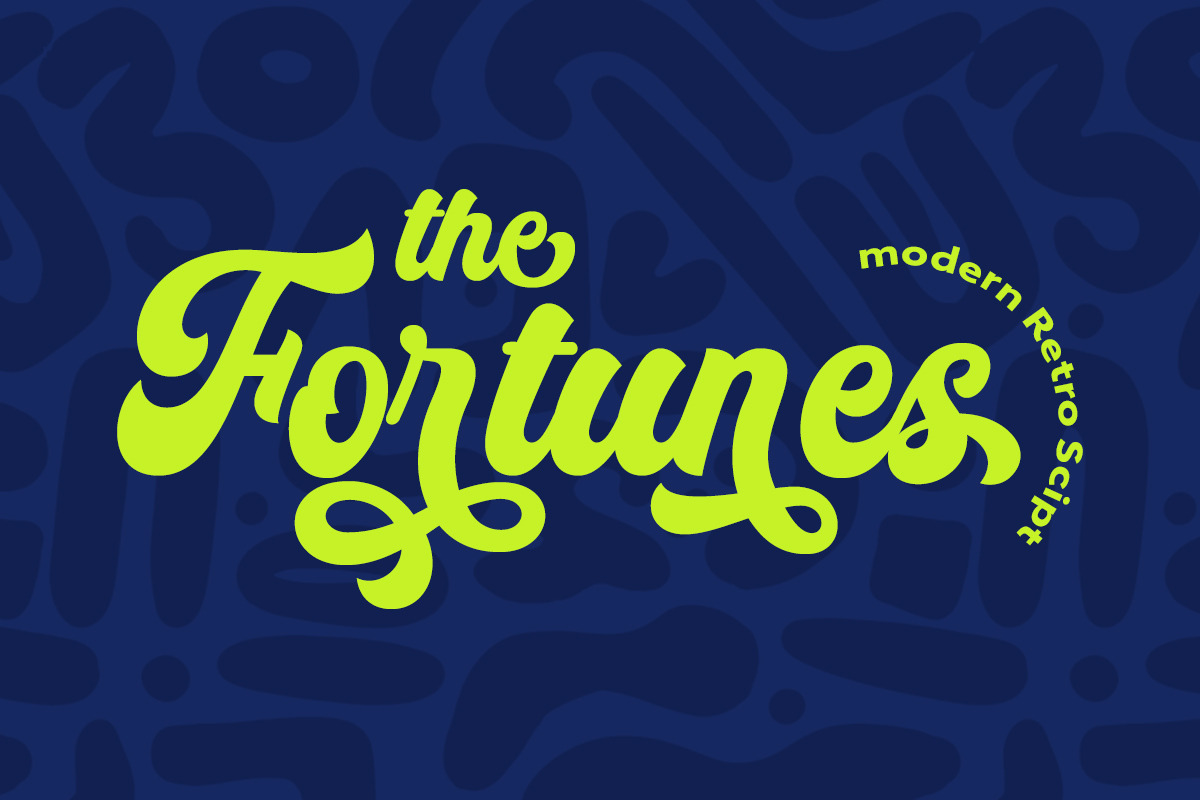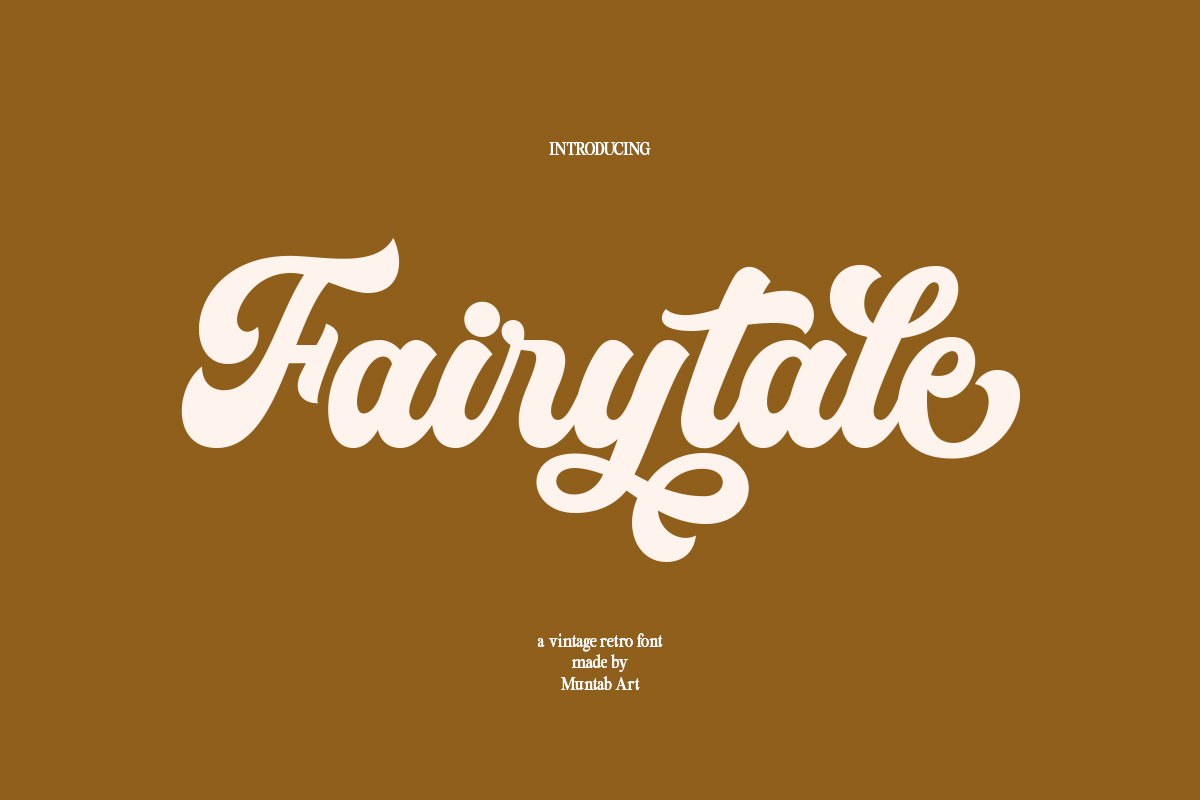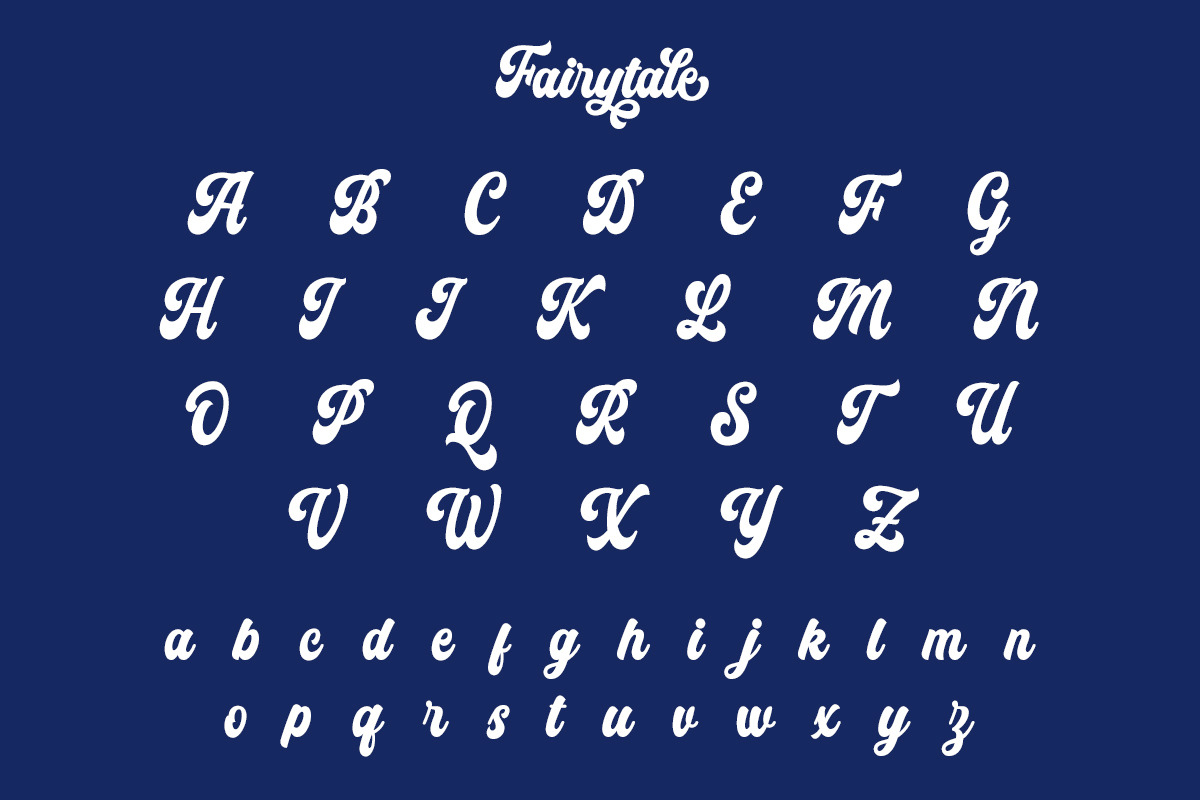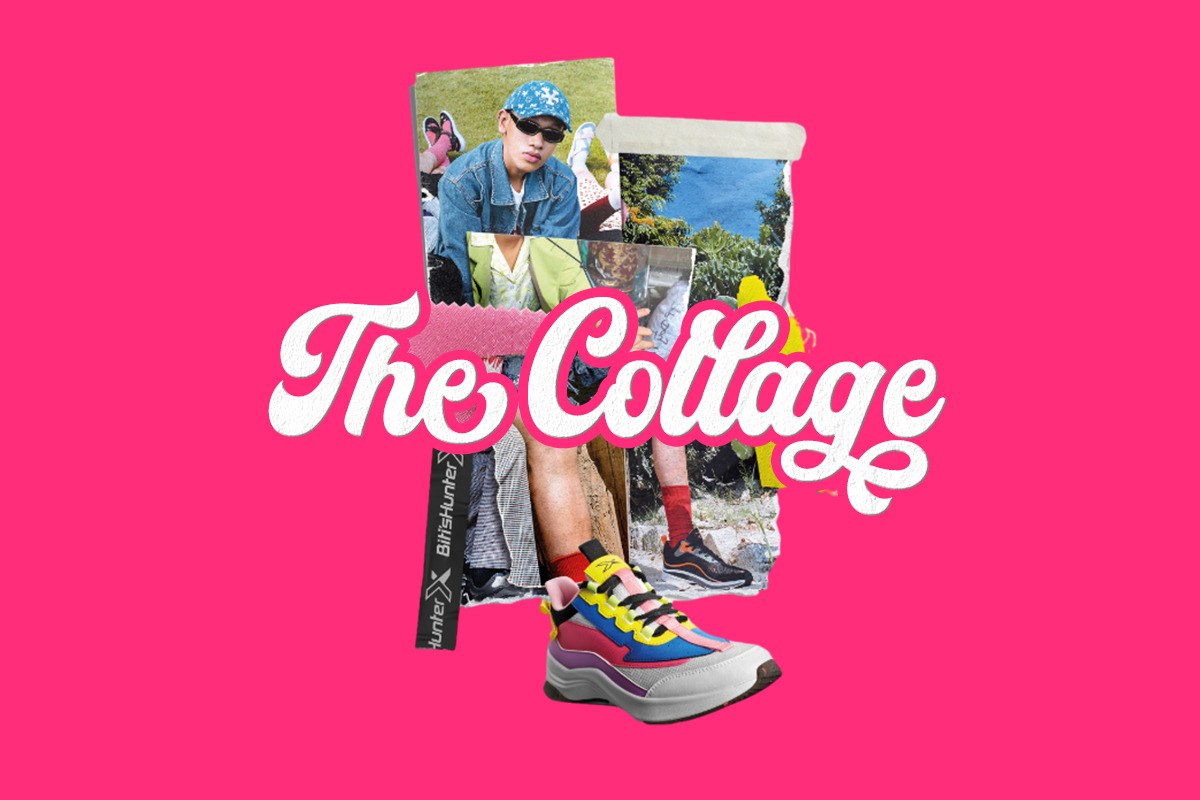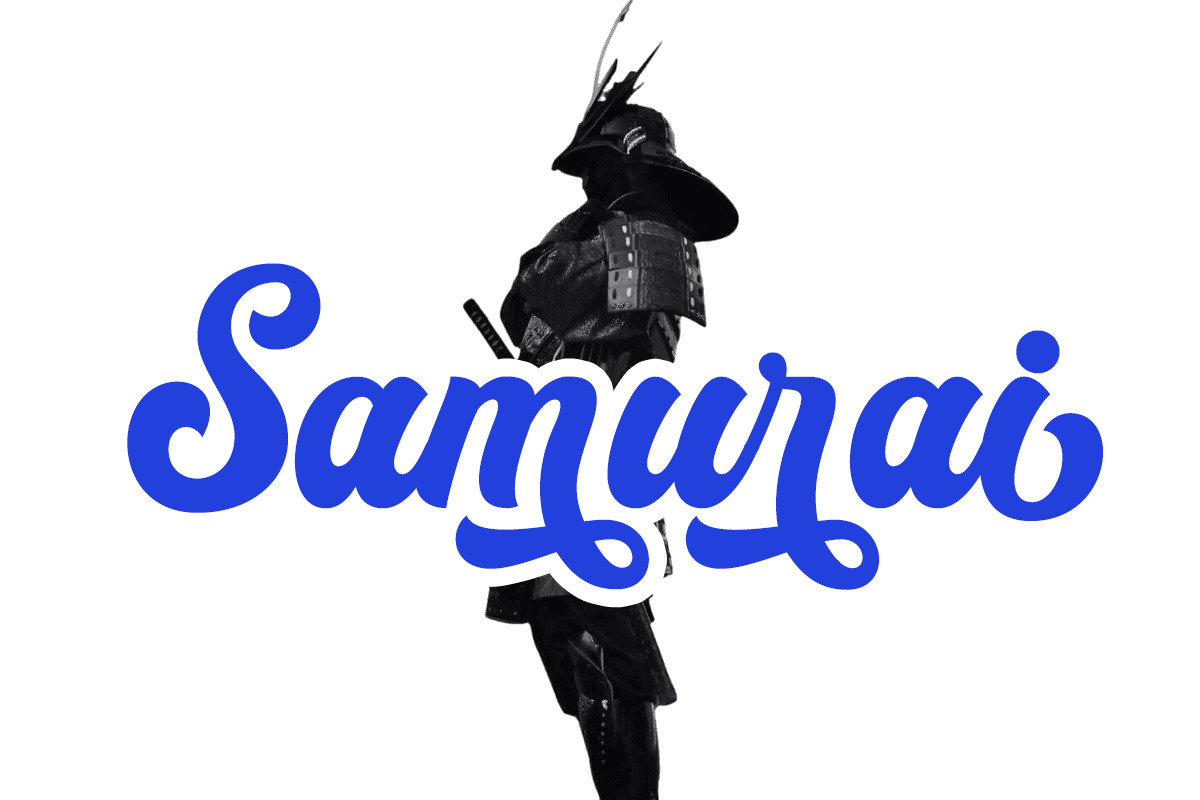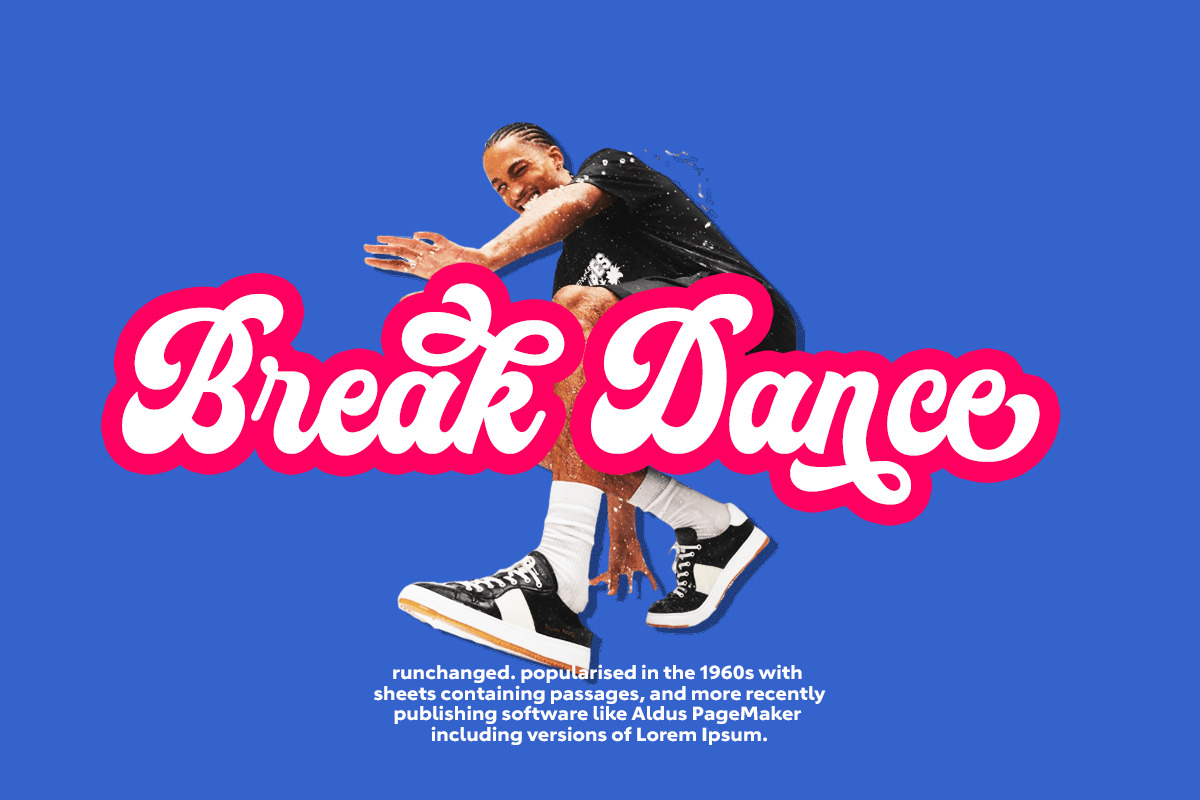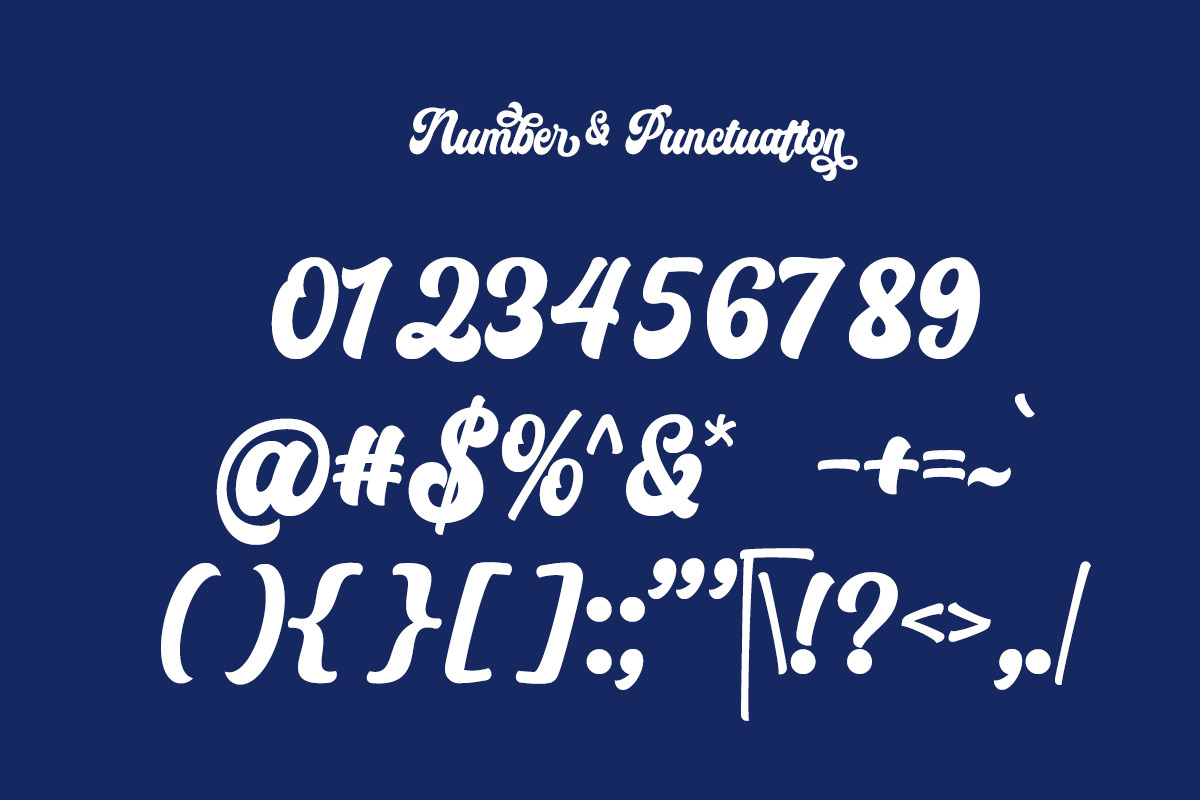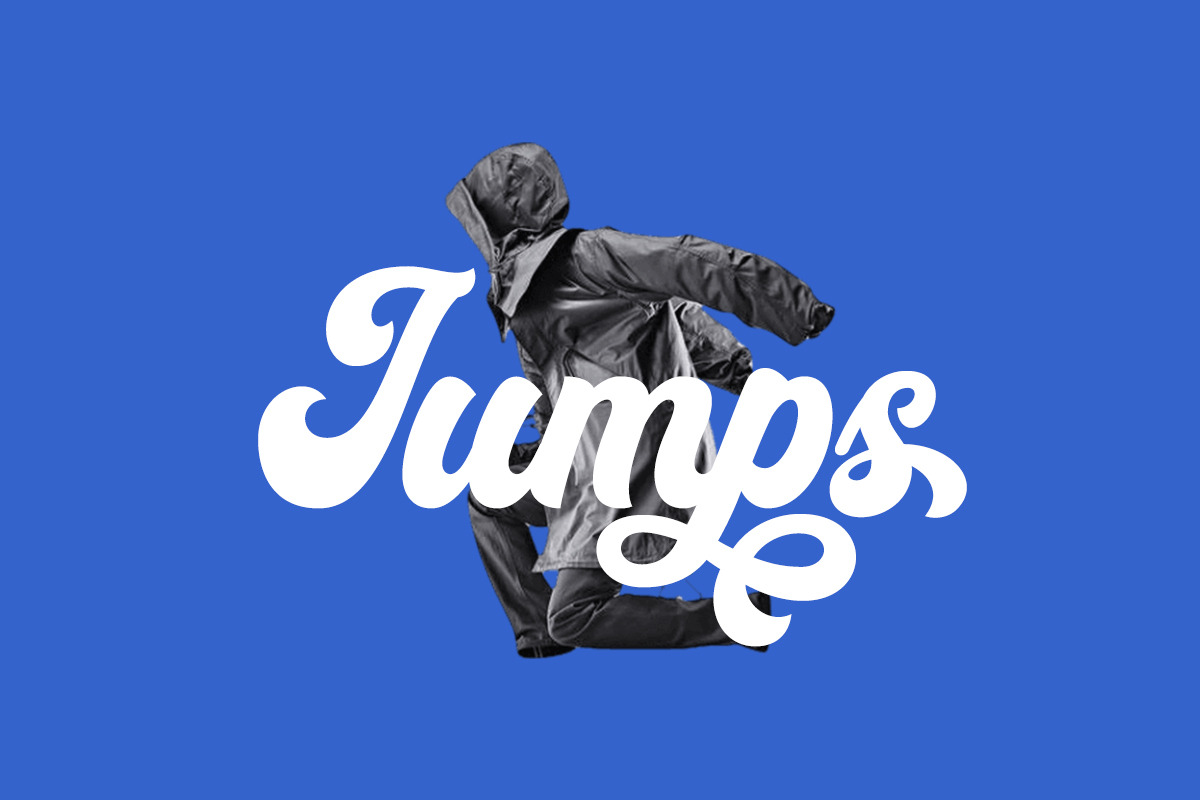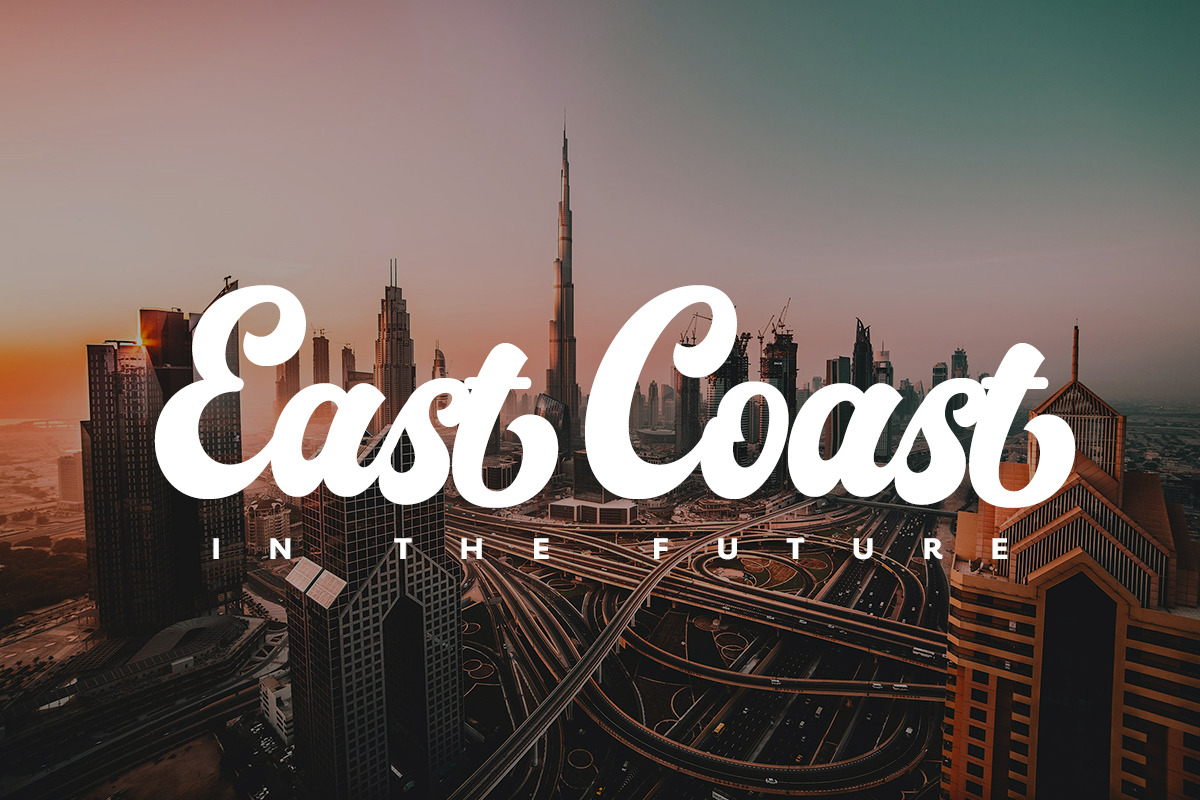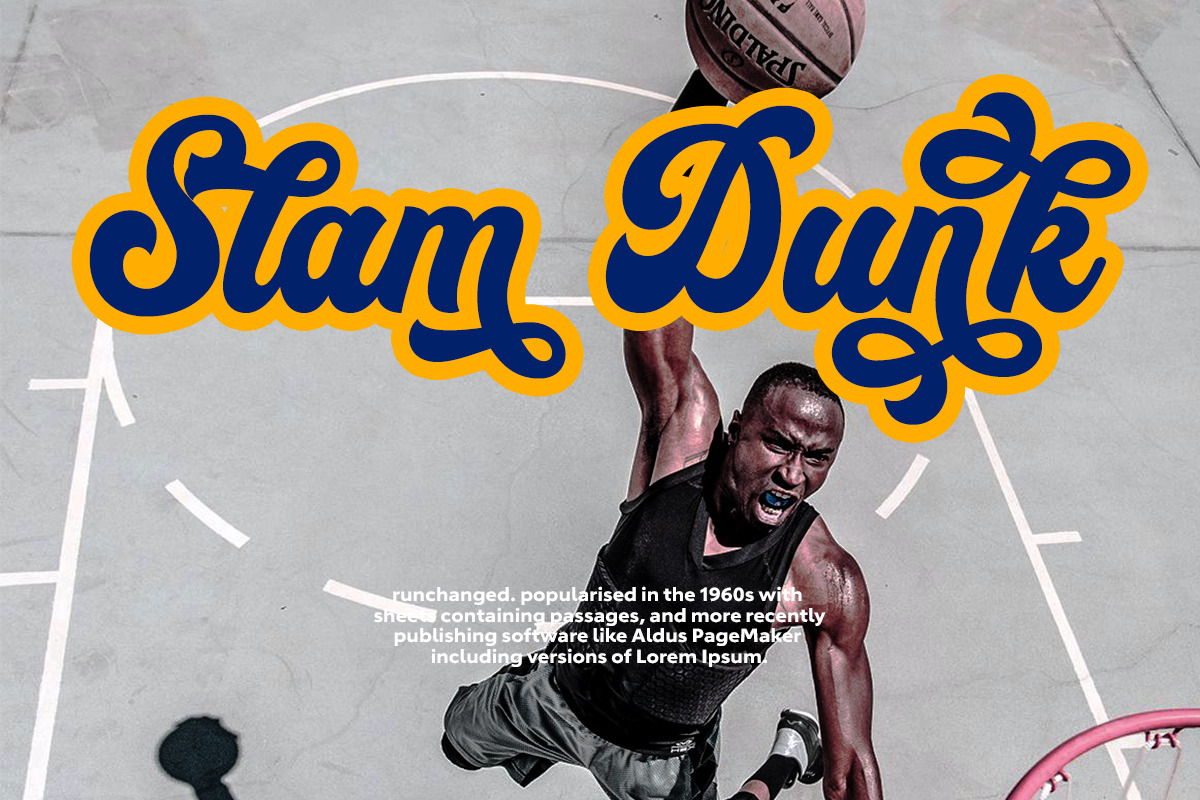
Fairytale Groovy Retro Font
Fairytale fonts includes uppercase letters, lowercase letters, numerals, a large range of punctuation. Script font with retro style includes alternate characters. Created for poster, web design, branding, illustrations, badges and some other works.